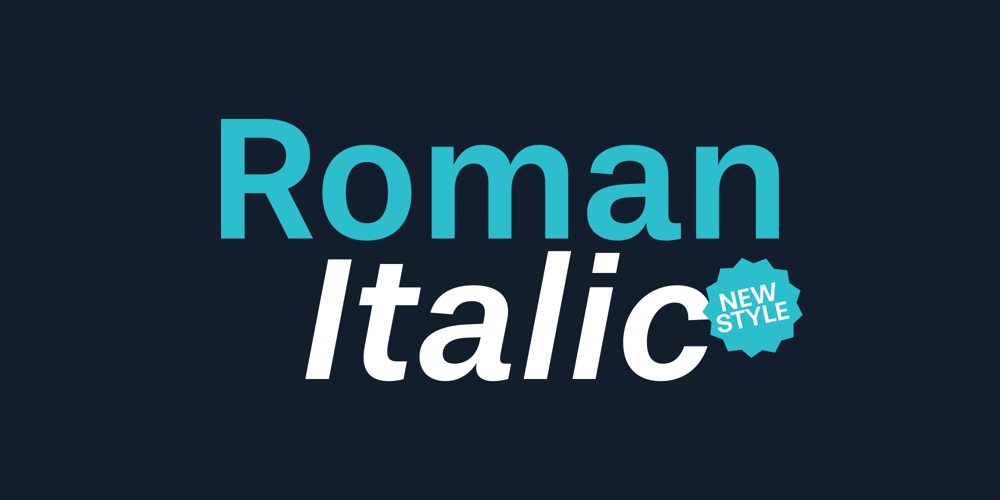
Stevie Sans Font Family was designed by Marconi Lima and published by Typefolio. Stevie Sans contains 14 styles and family package options. Some years ago I had my first contact with a grotesque typeface, when handling a sample catalog of typographic specimens from the age of phototypesetting. The style eventually settled in my memory waiting for the work of time. Behind its apparent neutrality, there is a complex balance game, that almost leads to the basic principles of design which deliver such power to the grotesque style. Stevie Sans is the answer to the action of time. A bridge that allows the designer to go into the past, while being in the present and looking towards the future. It is what it’s expected from a grotesque designed in the 21st century. With 7 roman styles ranging from thin to black, support to many languages and essential opentype features, Stevie Sans is the ideal choice for your project.